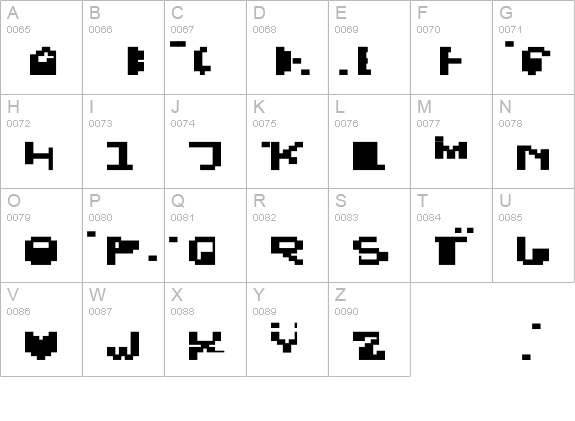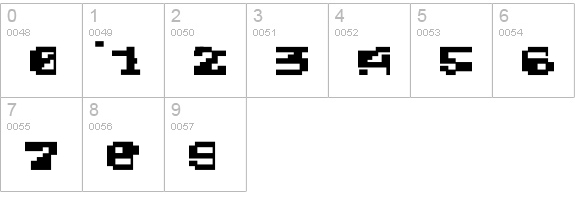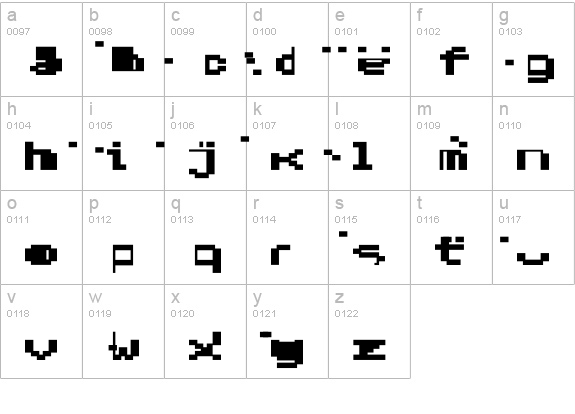
DS VDOTXTError Font Details
Introducing the DS VDOTXTError font, a unique and modern typeface designed to make a bold statement in your projects. This font features a futuristic and edgy style, perfect for adding a touch of innovation to your designs. The DS VDOTXTError font is versatile and can be used for various purposes, from branding to digital art. What sets this font apart is its striking geometric shapes and sharp angles, giving your text a dynamic and eye-catching appearance. Whether you're working on a poster, logo, website, or any other creative project, the DS VDOTXTError font will help your text stand out and leave a lasting impression. Best of all, this font is completely free to download at FontsMarket.com, making it easily accessible for all designers and creatives. Don't miss out on the opportunity to elevate your design projects with the DS VDOTXTError font – unleash your creativity and make a bold statement today!